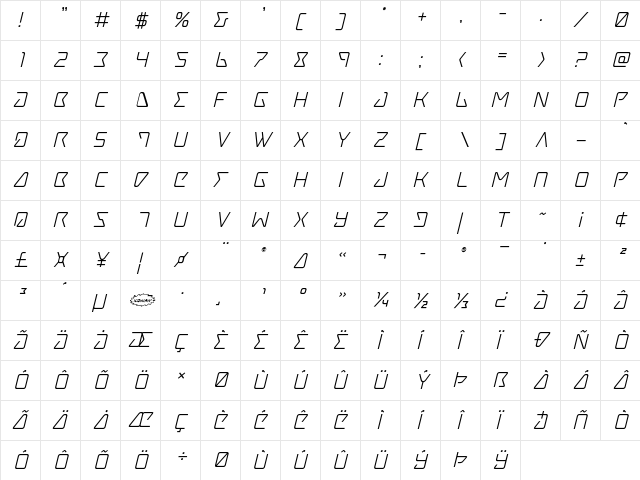
Tracer Italic Italic Font Preview
Tracer Italic Italic
Tracer Italic Italic Font Details
Design Context for Tracer Italic Typeface
Tracer Italic is a composed and adaptable typeface that performs quietly and consistently across a wide range of design contexts. The slanted form adds forward momentum and visual energy.
Pro Tip: Try Tracer Italic for annotation and caption copy alongside an upright companion — the contrast in angle creates a dynamic but ordered typographic system.